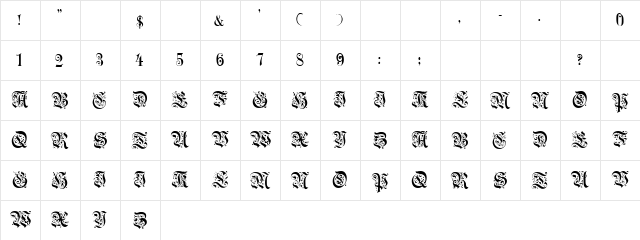
Dragon Drop Regular Font Preview
Dragon Drop Regular
Design Context for Dragon Drop Typeface
Dragon Drop is a composed and adaptable typeface that performs quietly and consistently across a wide range of design contexts.